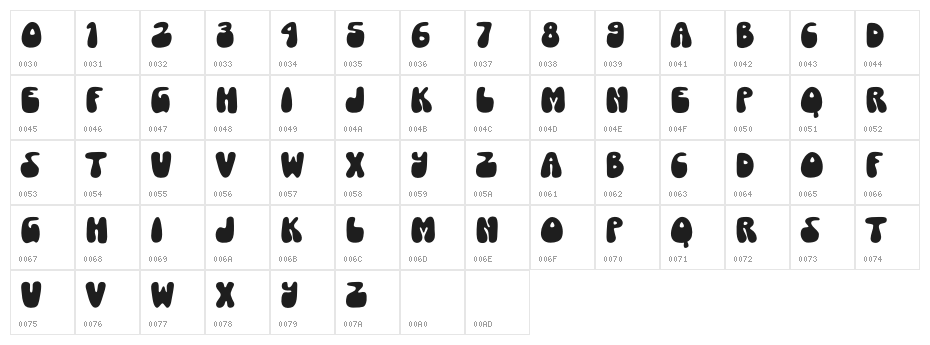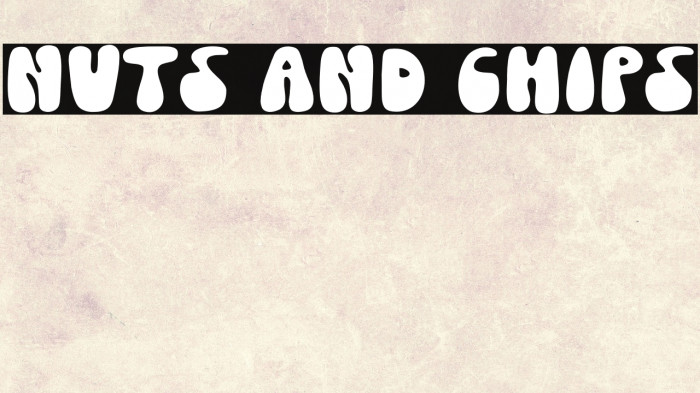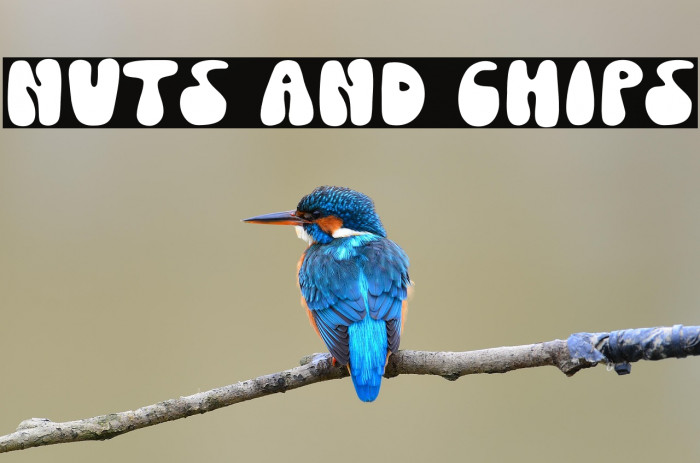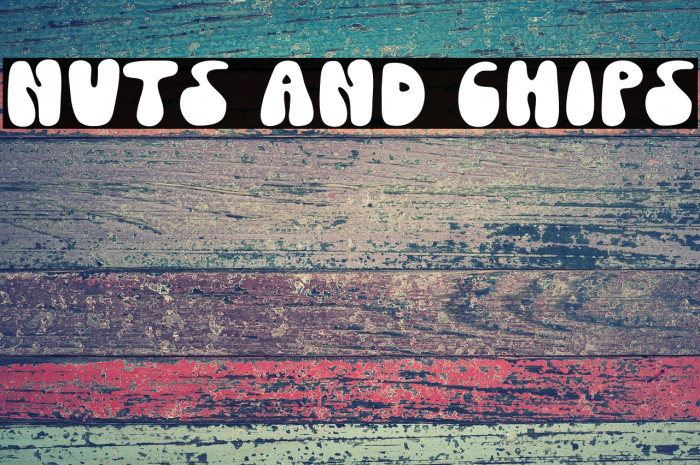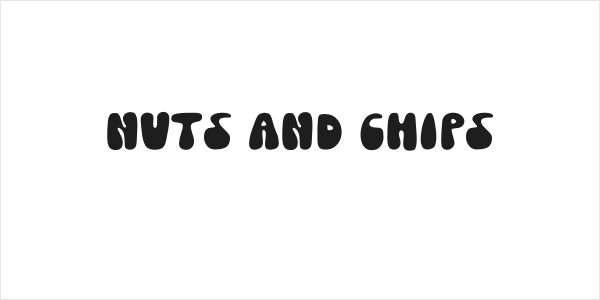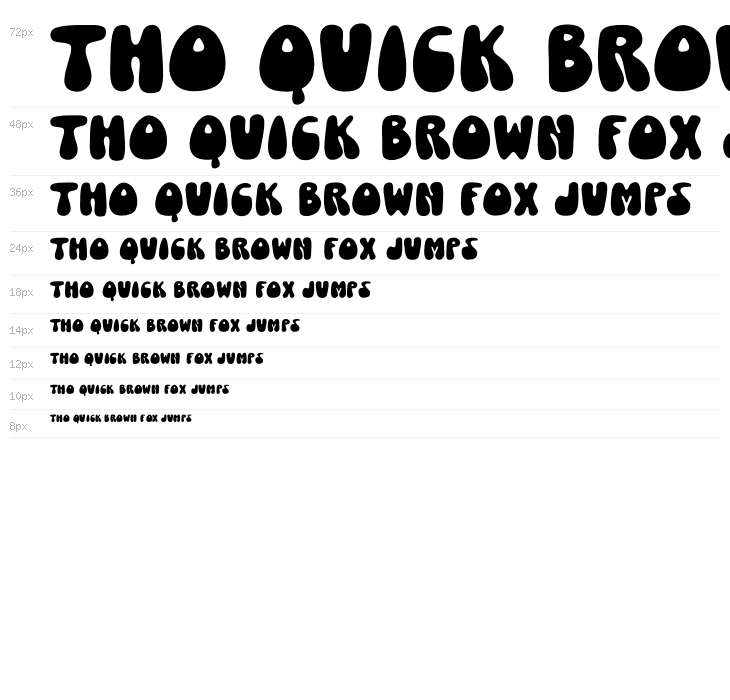
Nuts And Chips Font
Nuts And Chips Description
This playful and bold typeface features thick, rounded characters with a bubbly appearance. The letters are designed with a whimsical touch, creating a sense of fun and creativity. The font's unique style is characterized by its heavy weight and rounded edges, making it stand out in any design. Its boldness is consistent across both uppercase and lowercase letters, as well as numbers. The overall look is reminiscent of retro or vintage styles, yet it maintains a modern appeal. The spacing between characters is tight, enhancing its compact and cohesive appearance. This font is perfect for projects that require a lively and eye-catching design.
Overall StylePlayful, Retro, Modern
Proposed ProjectsIdeal for children's books, playful branding, event posters, and creative packaging designs.